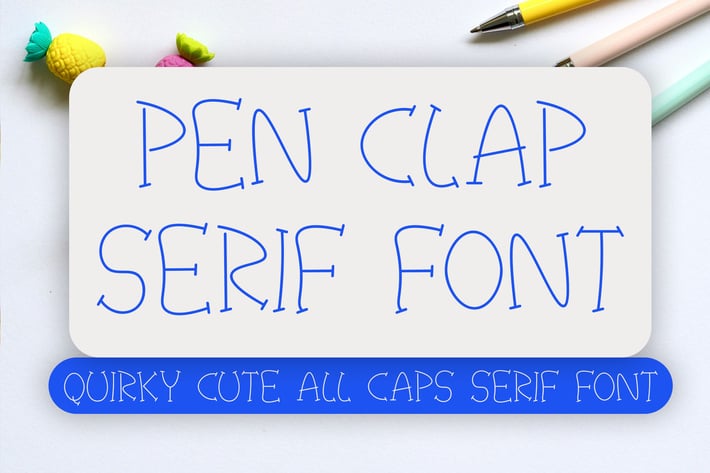
Pen Clap Serif - Quirky Cute All Caps Font
Pen Clap Serif is a new all caps playful Quirky Cute All Caps Font.
Pen Clap Serif font will perfectly shows the positive vibes with the quirky handwritten style.
* Capitals, lowercase, numbers, symbols.
Basic Latin (English) characters.
Pen Clap Serif font will perfectly shows the positive vibes with the quirky handwritten style.
* Capitals, lowercase, numbers, symbols.
Basic Latin (English) characters.